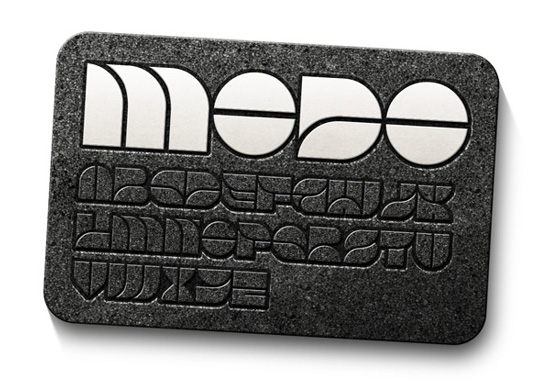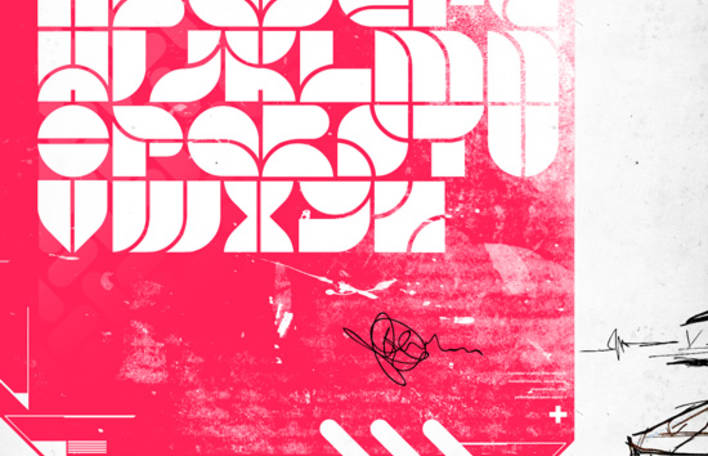
Modo is a chunky new font from designer Birdy3000. It’s suitable for headlines, posters and logos and is available for free download from www.david-bird.com